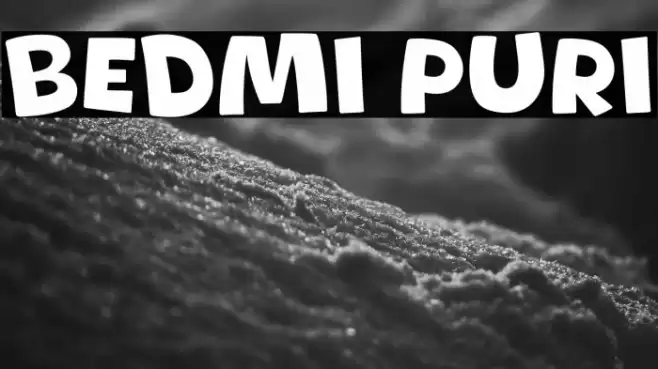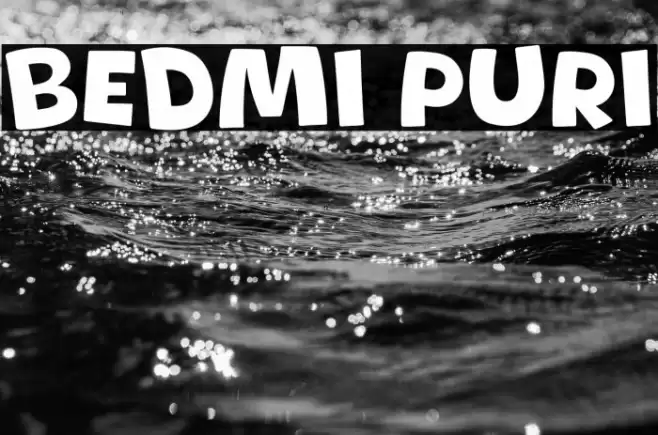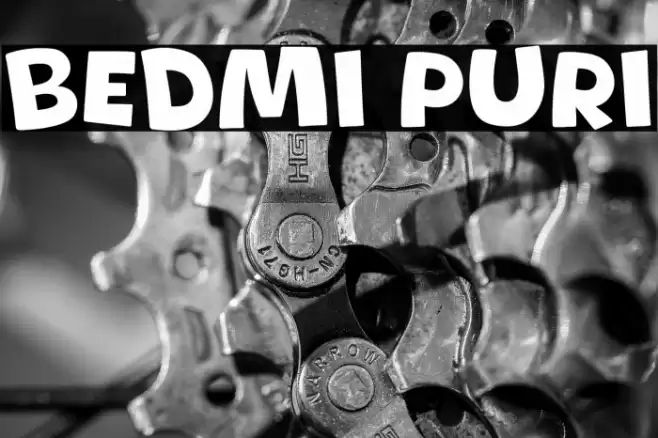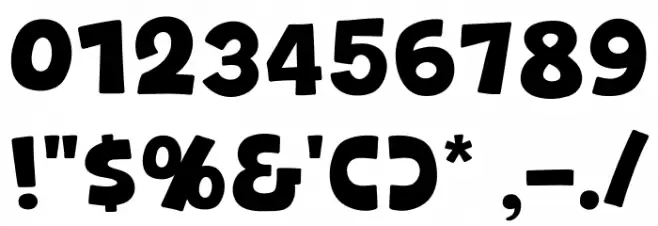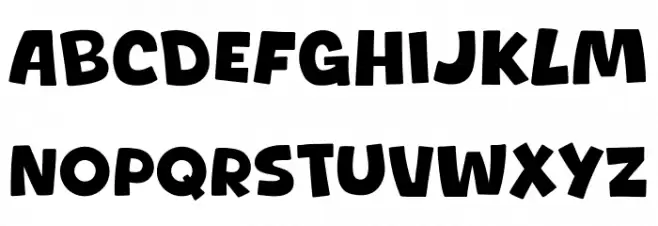
Bedmi Puri Font
Bedmi Puri Description
This font features a playful and bold design with a slightly irregular and hand-drawn appearance. The characters are thick and rounded, giving them a friendly and approachable look. The uppercase and lowercase letters maintain a consistent style, with exaggerated curves and a slight tilt that adds to the whimsical feel. The numbers and special characters follow the same design principles, ensuring a cohesive look across all glyphs. This font's unique style makes it stand out, making it suitable for projects that require a fun and engaging visual element.
A playful, bold font with a hand-drawn, whimsical style from Uncategorized fonts.
- Proposed Projects: Ideal for children's books, playful branding, posters, and greeting cards.
- Overall Style: Playful, Whimsical